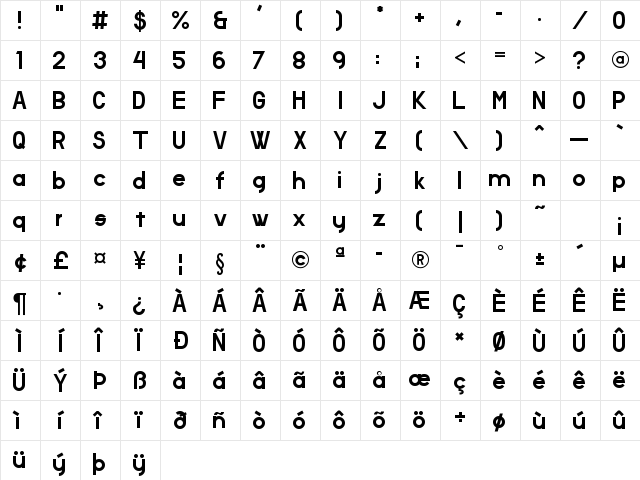
538Lyons V2 Regular
Design Context for 538Lyons V2
538Lyons V2 is a composed and adaptable typeface that performs quietly and consistently across a wide range of design contexts.